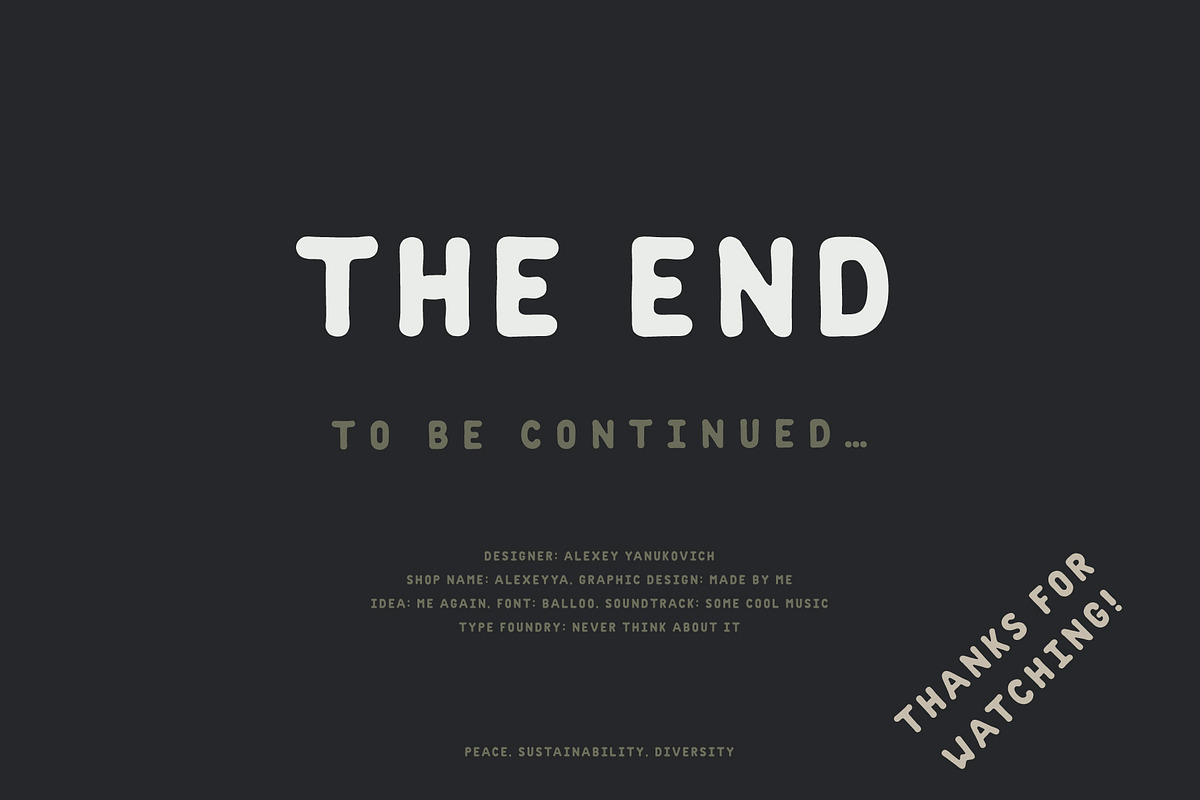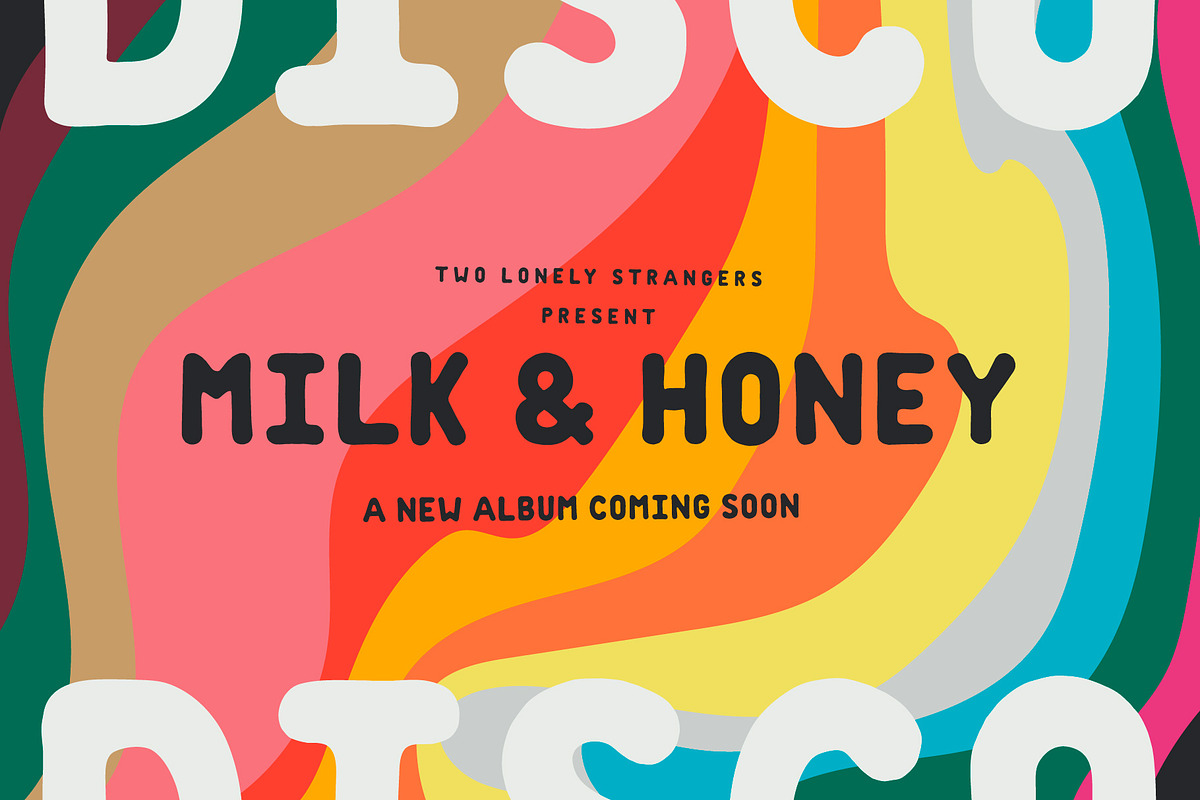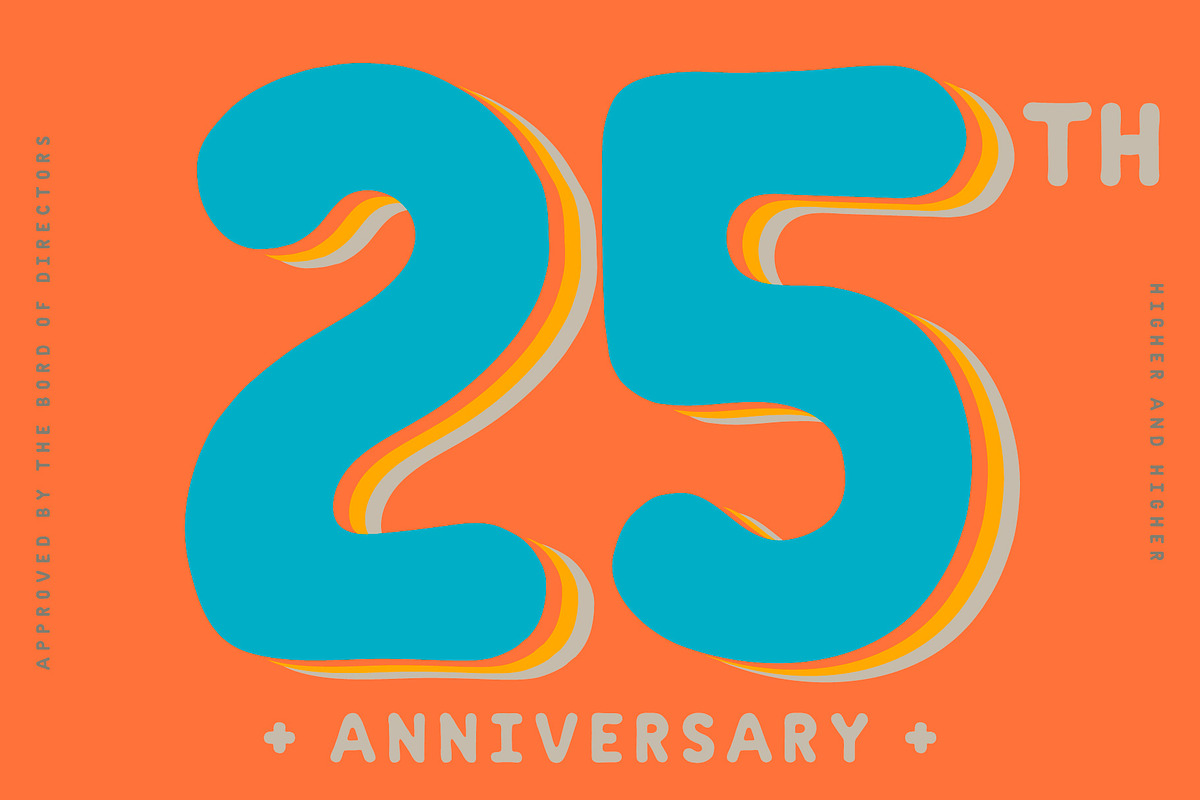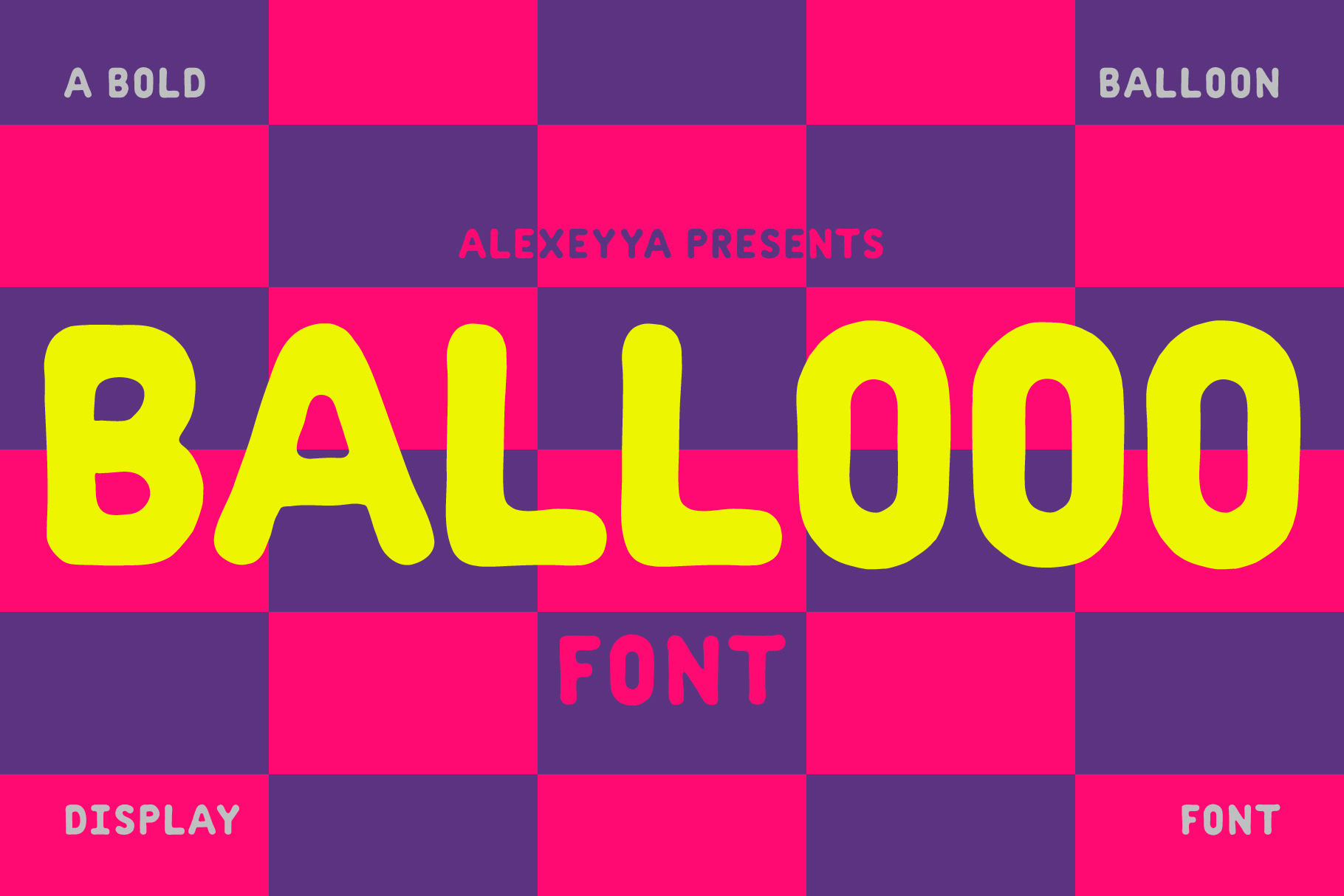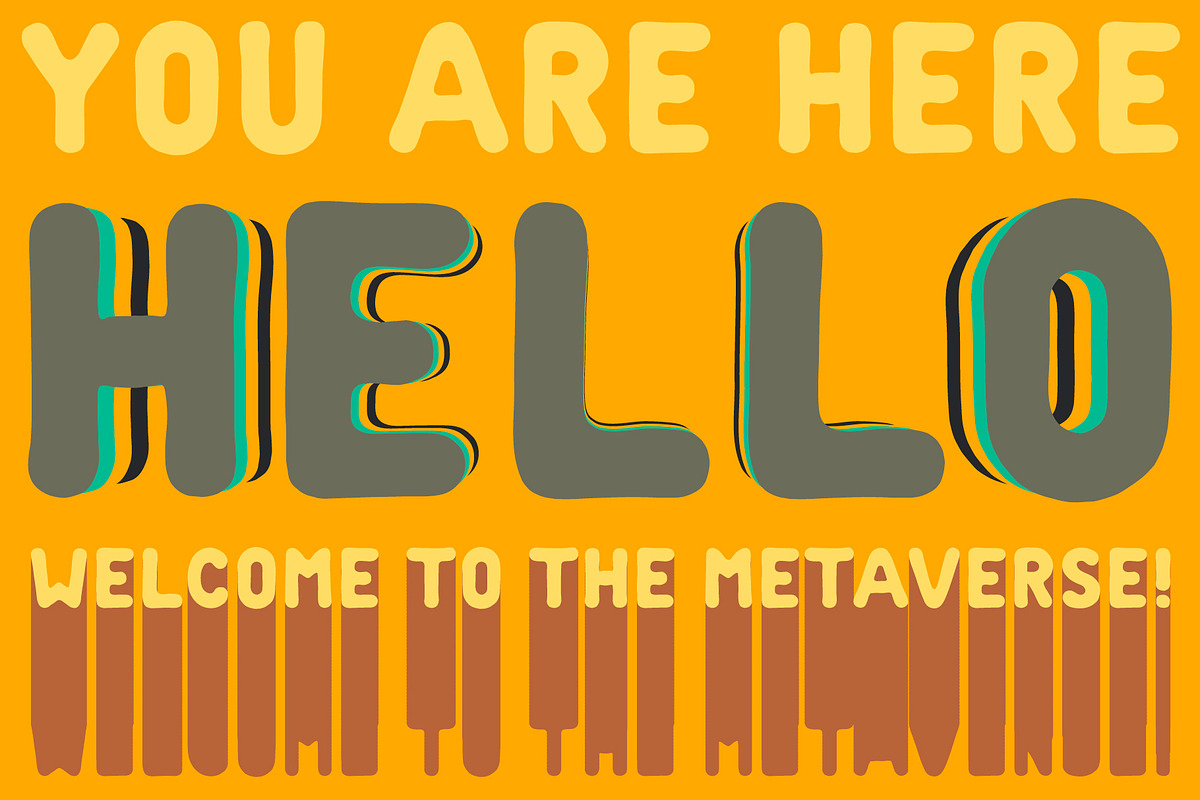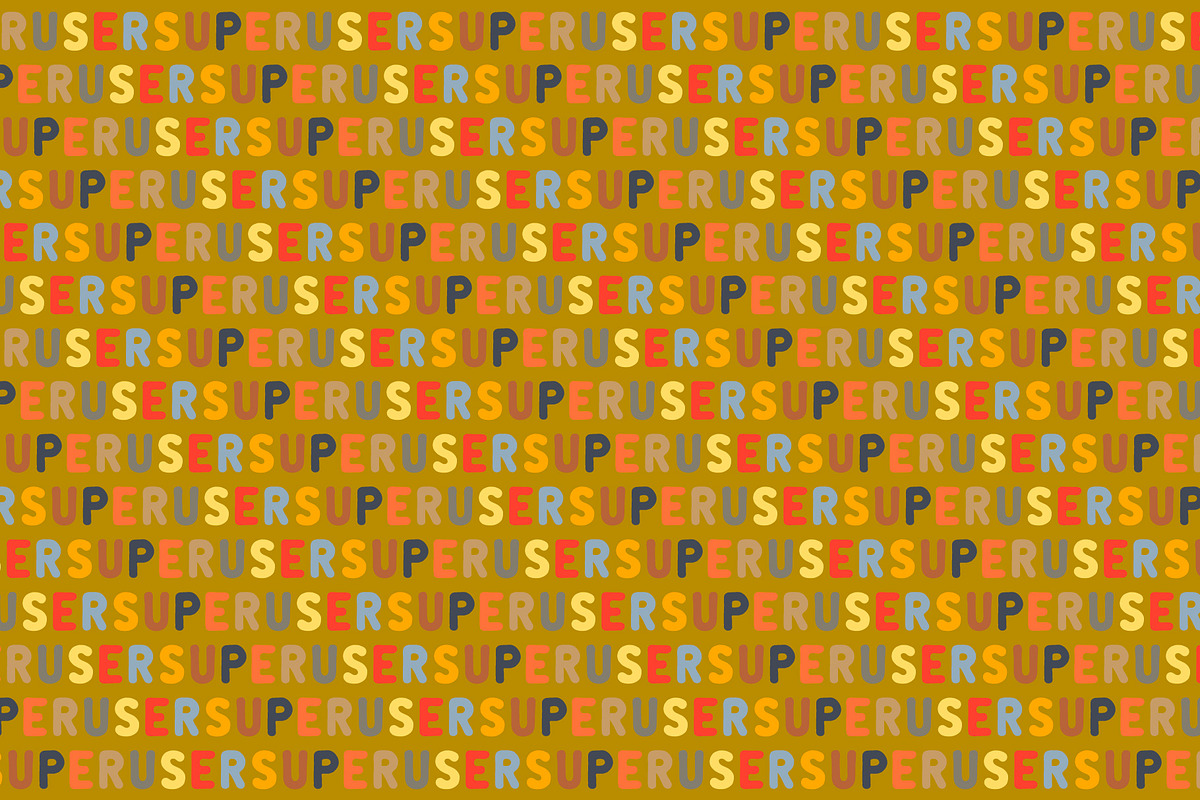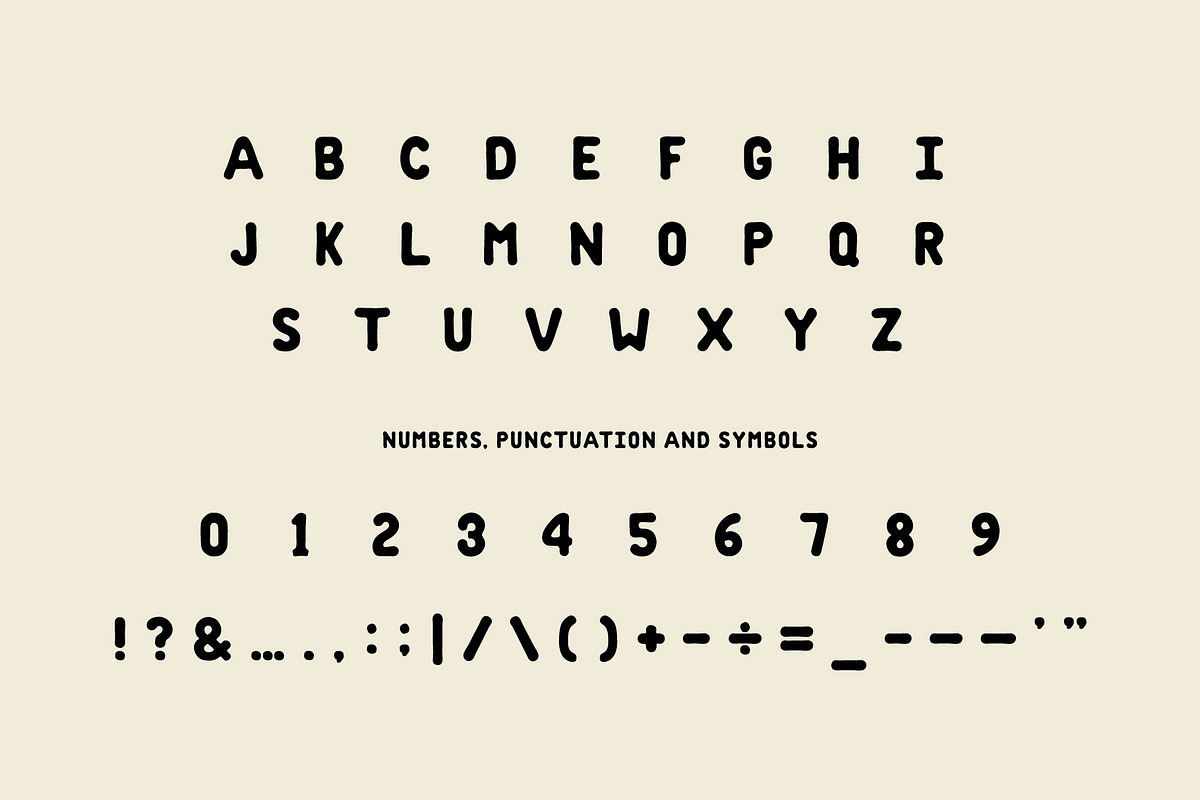
BALLOOO — Bold Balloon Display Font
Introducing BALLOOO – a bold, balloon letters-inspired font. BALLOOO was hand-drawn, preserving balloon shapes that a bit strange and irregular. These unique features and soft lines give it a slight 70s look, yet it feels fresh and modern.
BALLOOO works perfectly for short sentences and headlines. Use it for postcards, wedding invitations, branding, magazine/website design, posters, film titles, packaging and so on.
- One weight
- Uppercase characters (lowercase characters are the same as uppercase)
- Numbers, punctuation and symbols